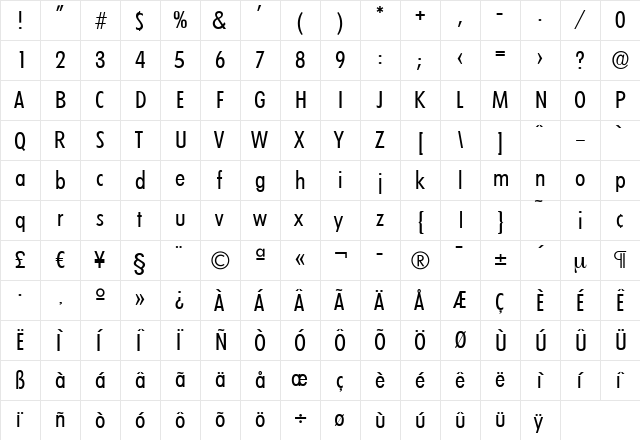
PeterBeckerCond Regular
Design Context for PeterBeckerCond Typeface
PeterBeckerCond offers clean, dependable letterforms without strong stylistic allegiance, making it a practical choice for designers who need flexibility. The condensed width makes it efficient for tight spaces without sacrificing legibility.